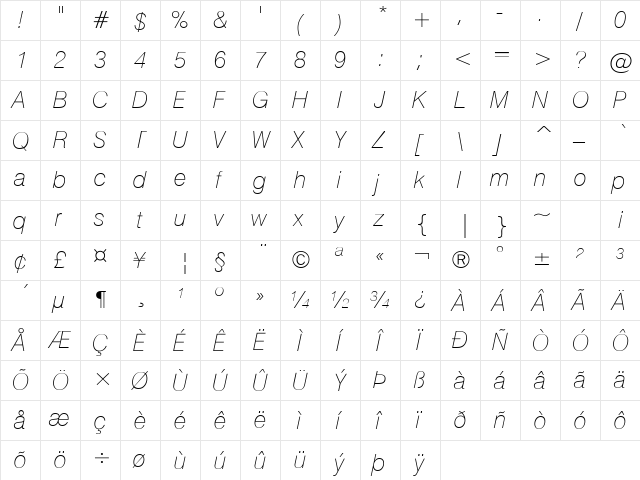
HailstenThin Italic Font Preview
Design Context for HailstenThin Typeface
HailstenThin takes a measured approach to typography — its balanced proportions and neutral character make it a reliable workhorse for both digital and print work. Its italic angle brings a sense of urgency and motion to the letterforms. The delicate stroke weight brings airiness and refinement to layouts.
Pro Tip: Try HailstenThin for annotation and caption copy alongside an upright companion — the contrast in angle creates a dynamic but ordered typographic system.